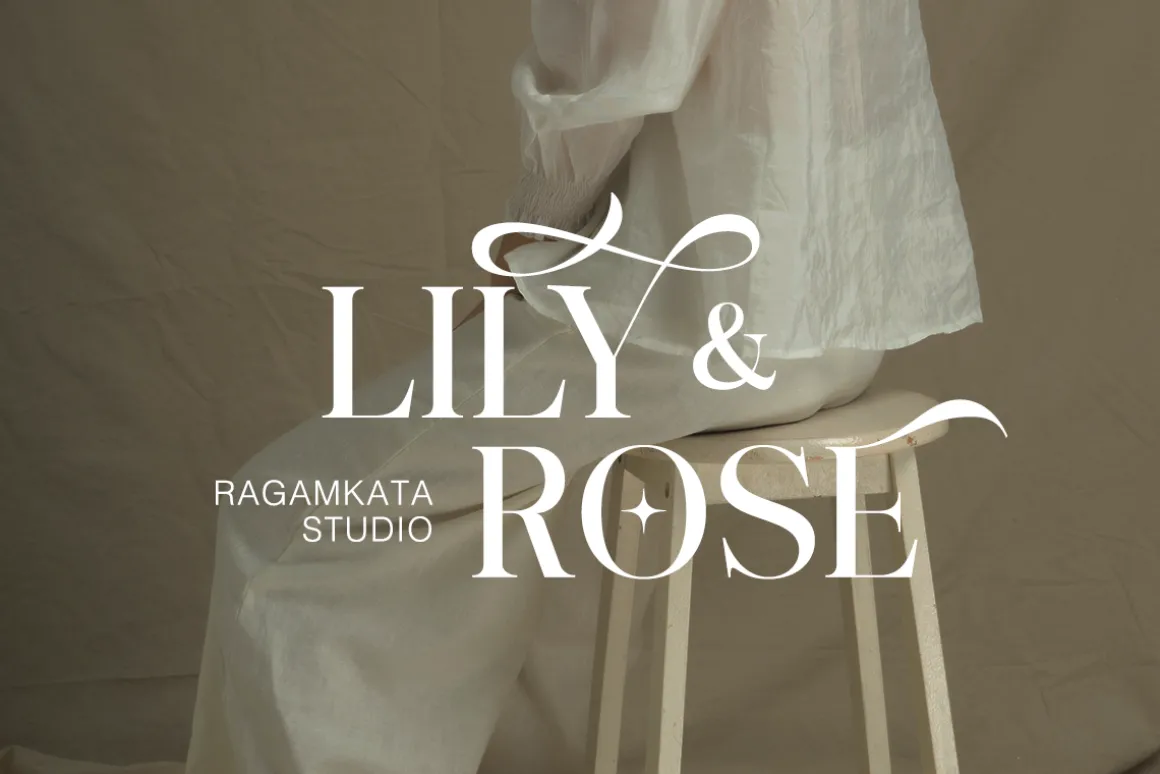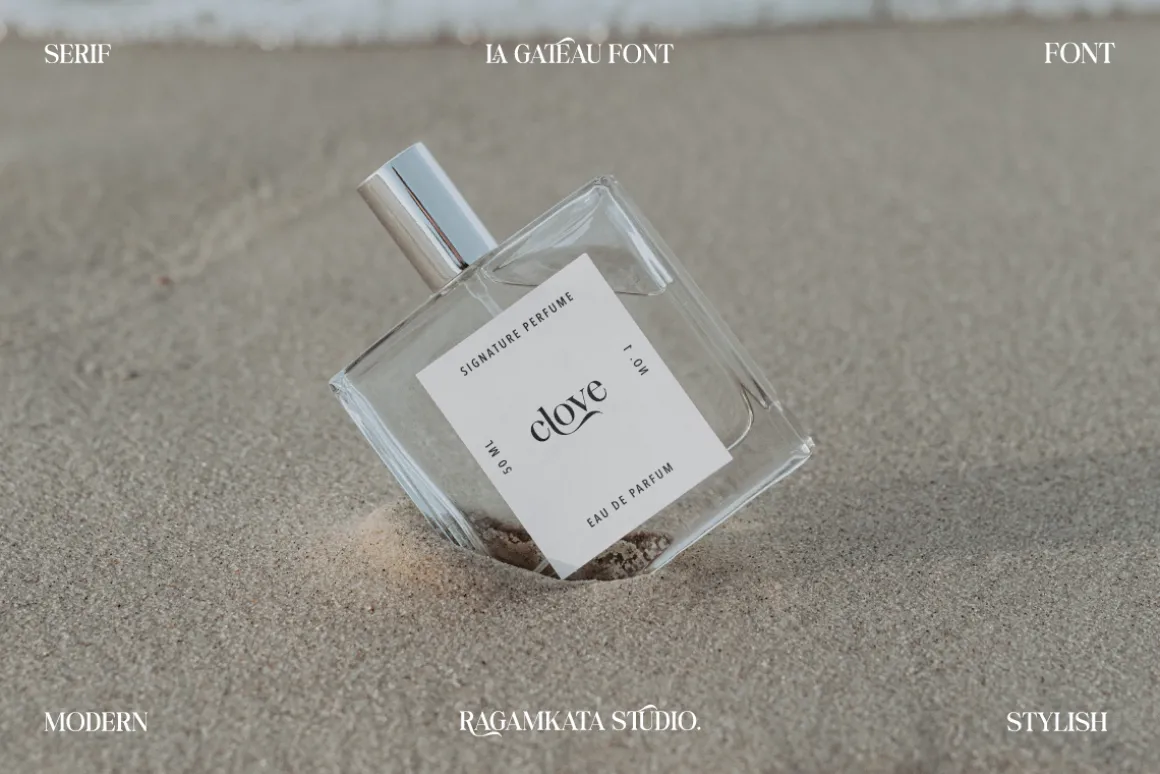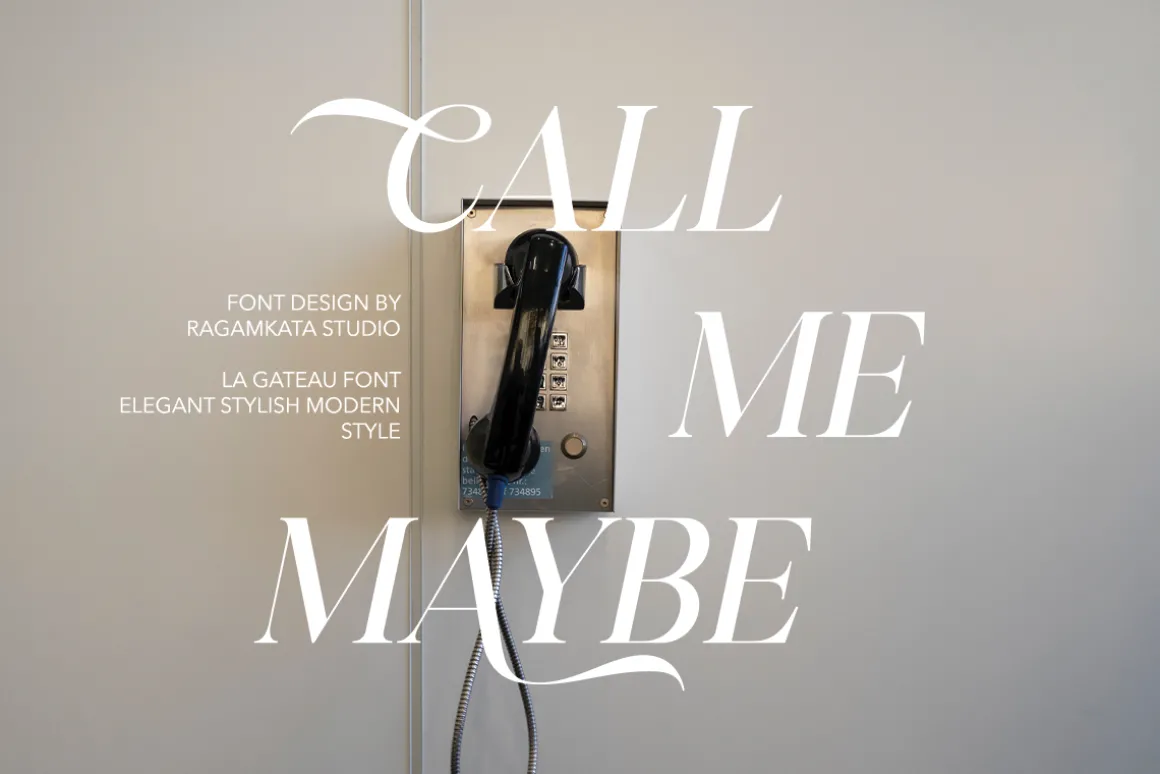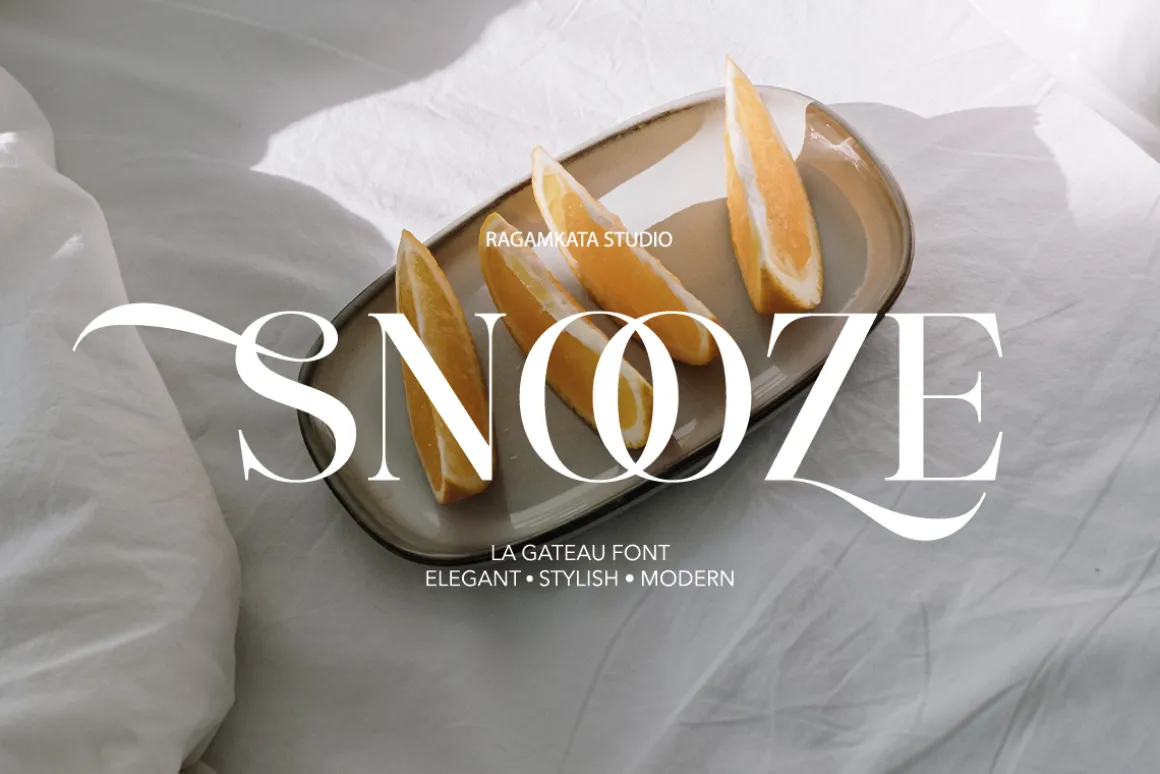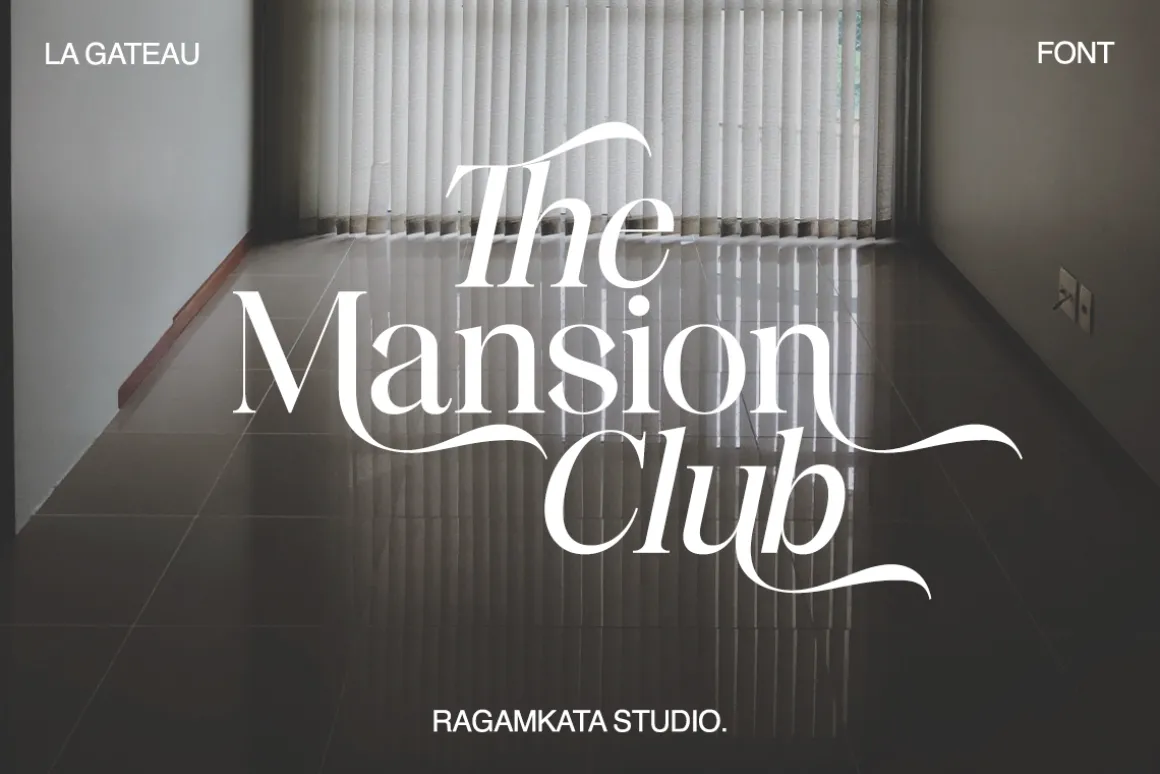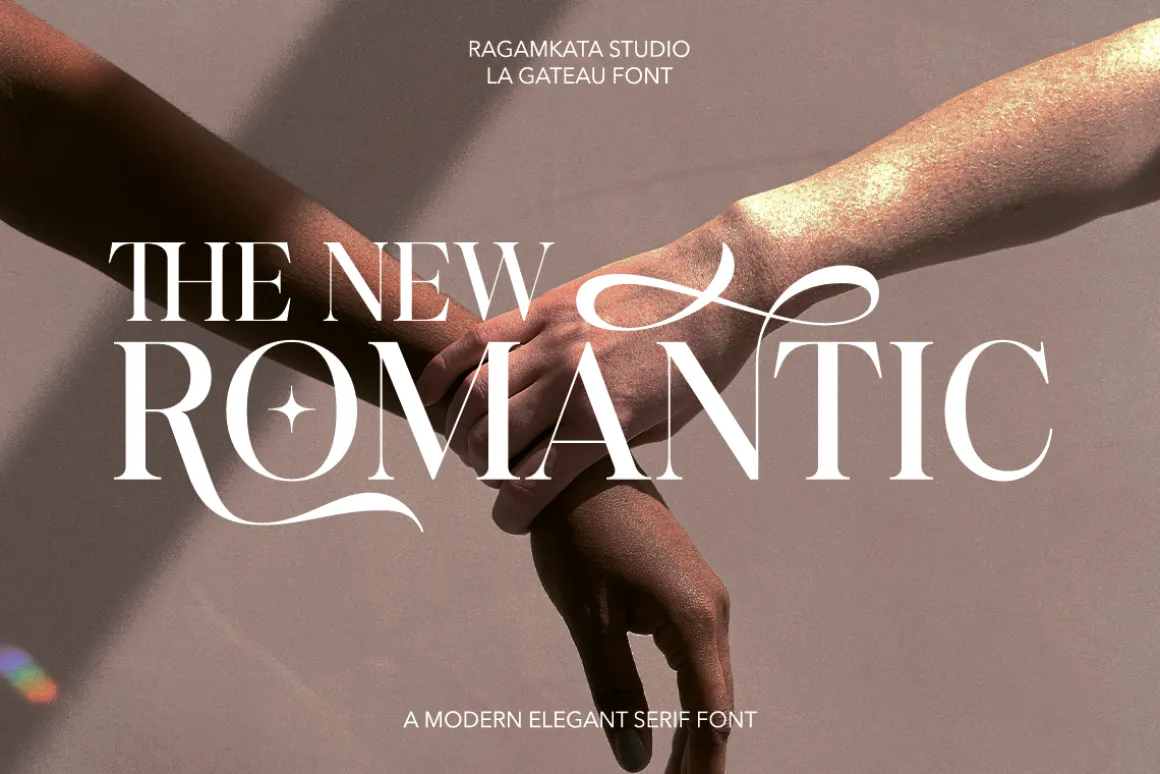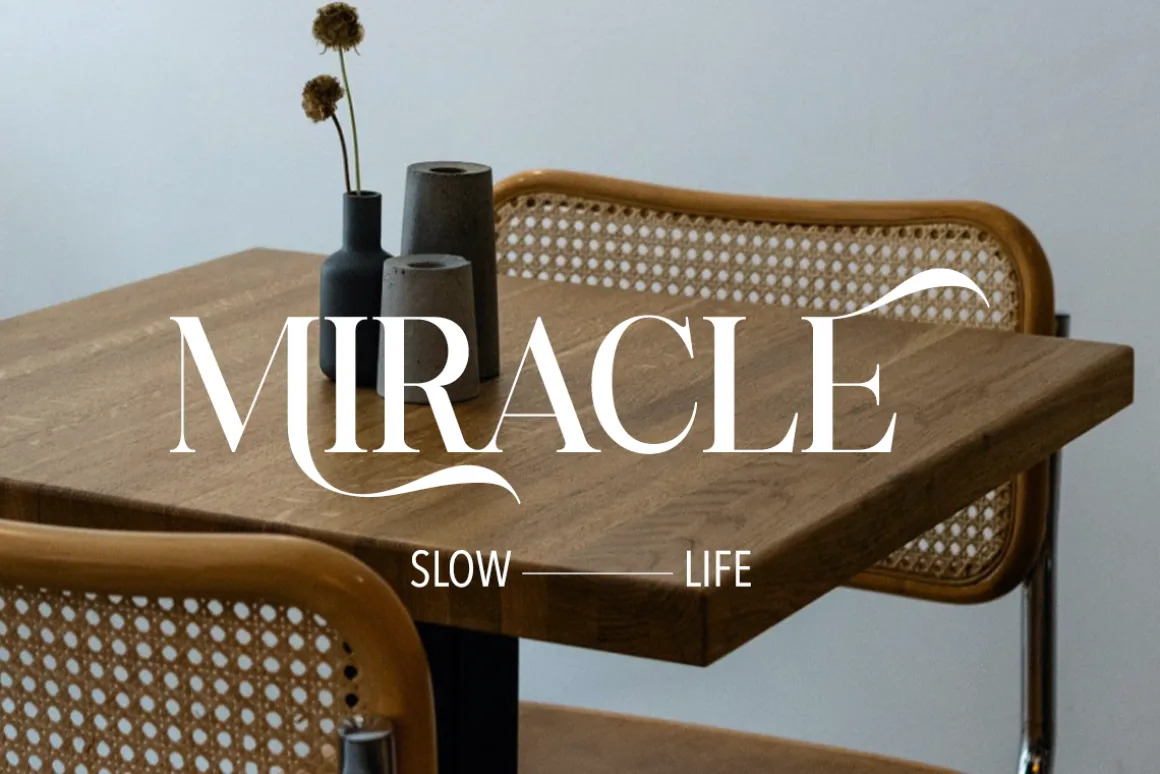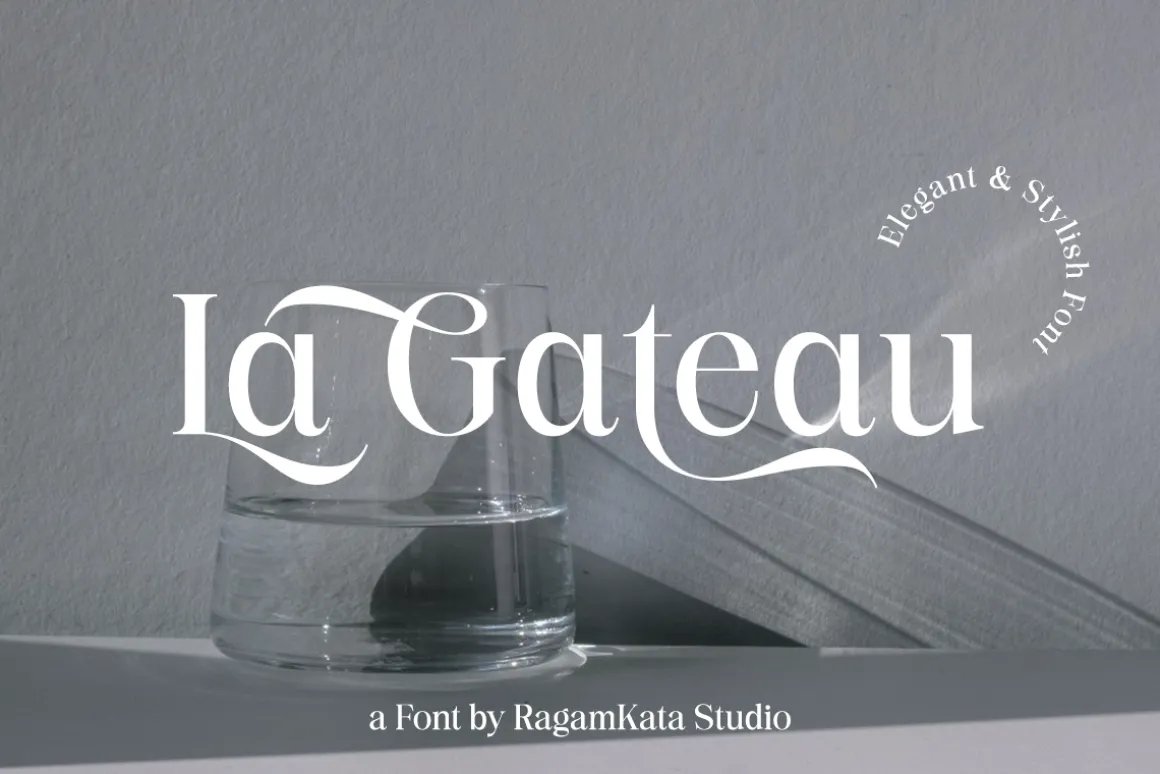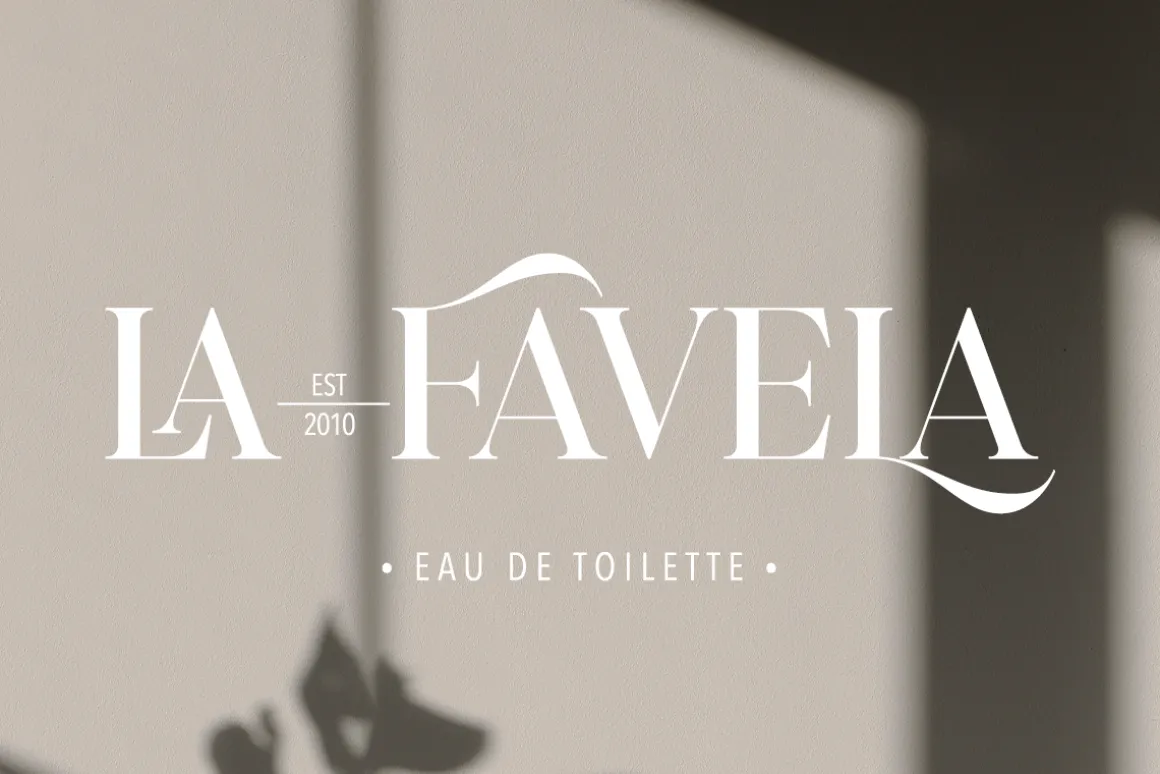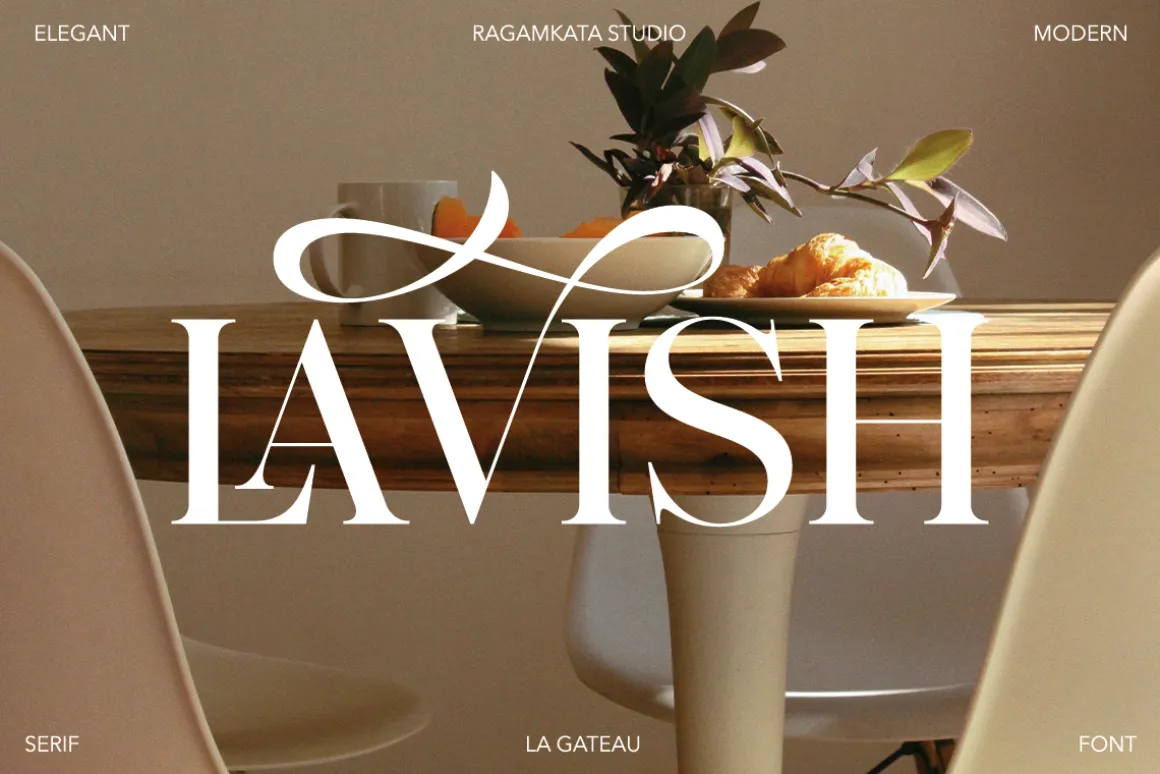
La gateau, a classic, elegant yet stylish serif font that will make your project evenmore stunning. A graceful typeface, with a perfect shape and ligatures will makeyour design look majestic. This typeface is a perfect for a luxury logo, classy editorialdesigns, fashion brand and promotion, and much more. Spread your aural with Lageteau.
La gateau font will also include some features :
- Ligatures & Alternates
- Letters, numbers, symbols, and punctuation
- Multilingual Support